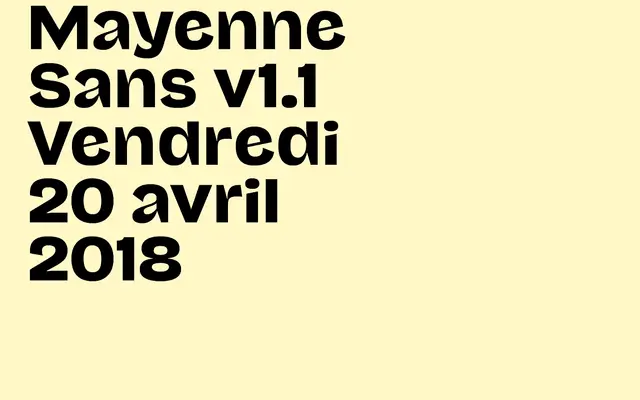
Mayenne Sans
Studio Triple · 2018
A custom sans-serif commissioned in 2018, produced by the French studio Studio Triple.
Mayenne Sans is a custom typeface produced by Studio Triple in 2018, designed for a specific commission rather than retail release. The page offers minimal detail on weights, styles or intended application, placing it firmly in the studio's bespoke work portfolio. Its inclusion alongside retail typefaces suggests a considered approach to letterform design consistent with the studio's broader output.
Classified as a sans-serif; the name and studio context suggest a humanist approach, though limited page detail makes precise subcategory attribution provisional.